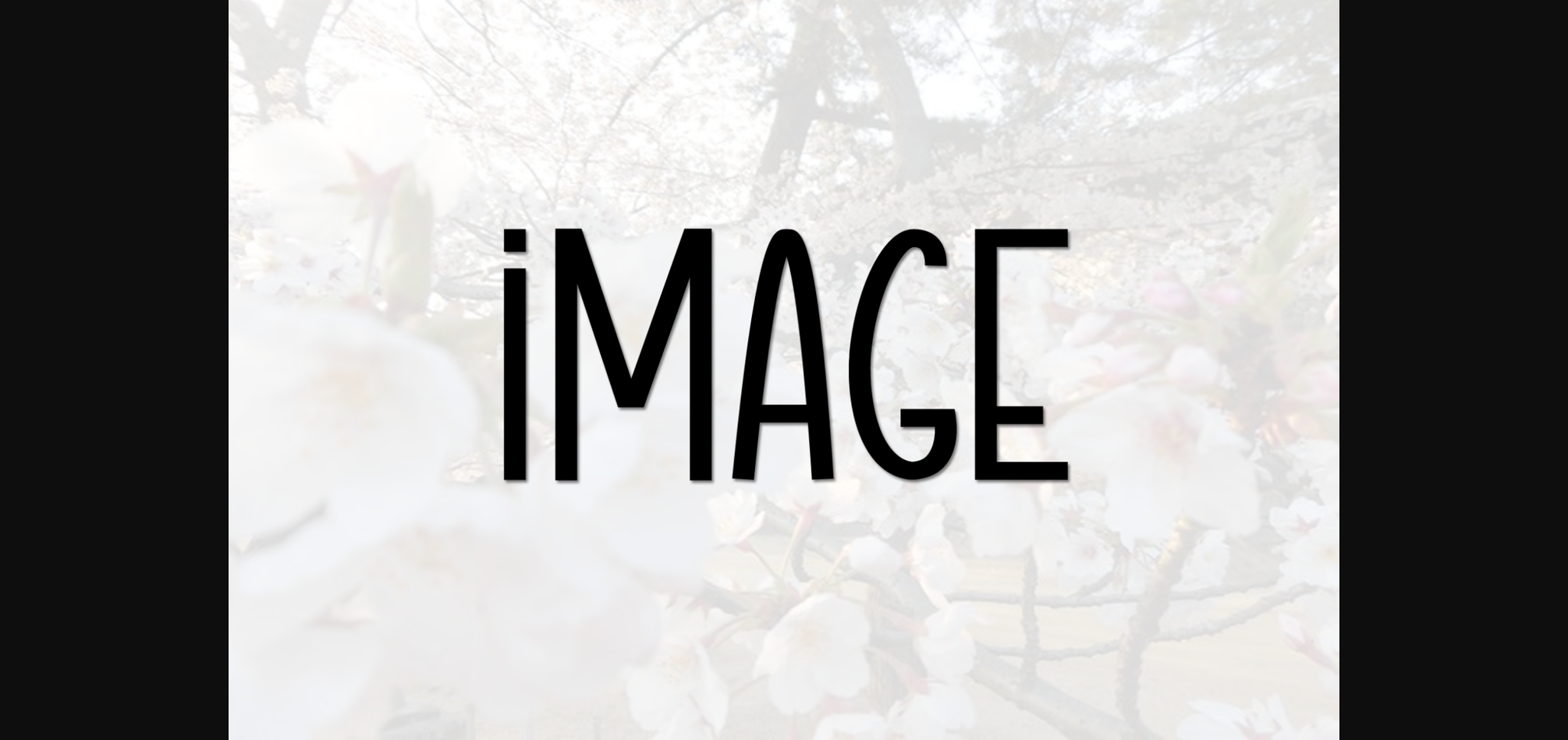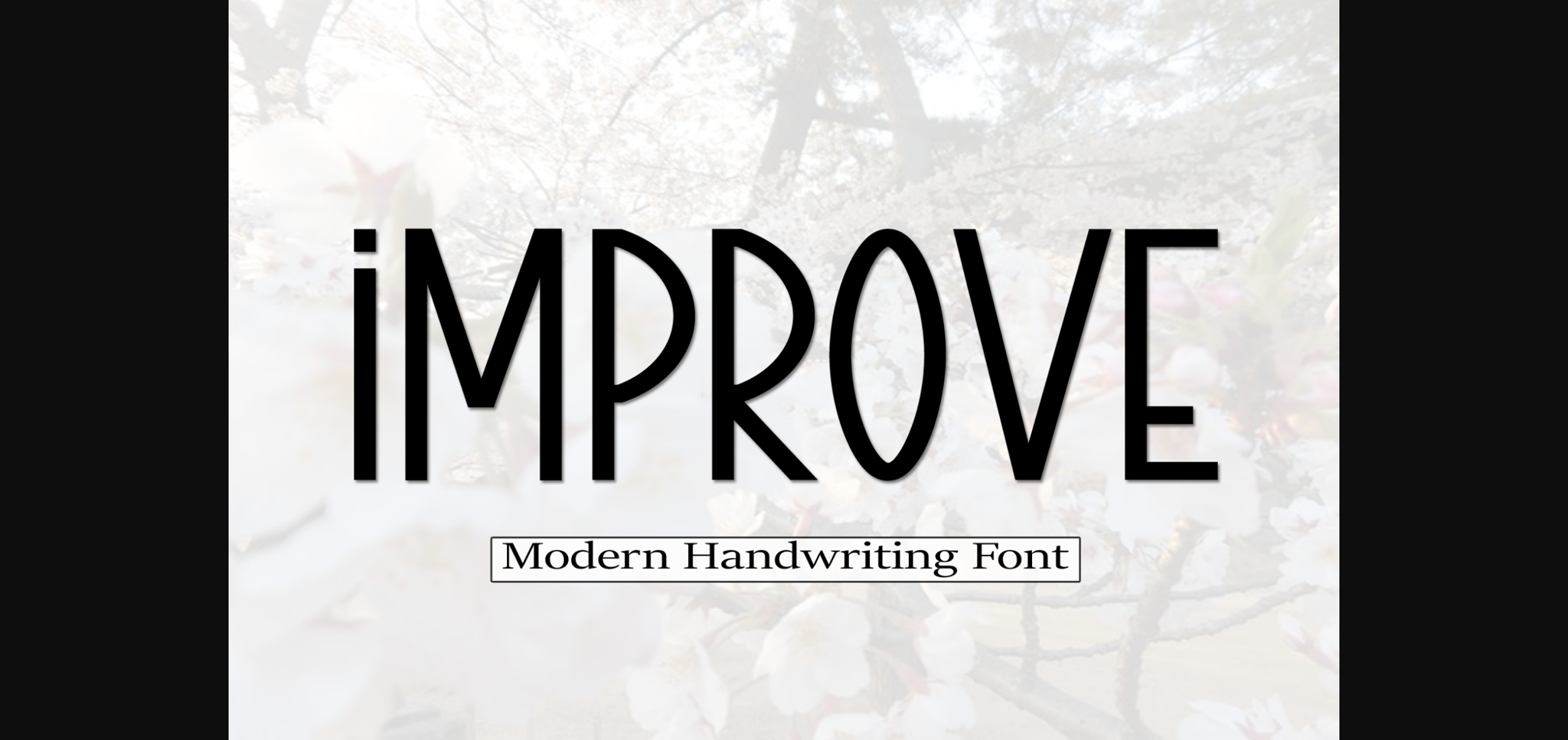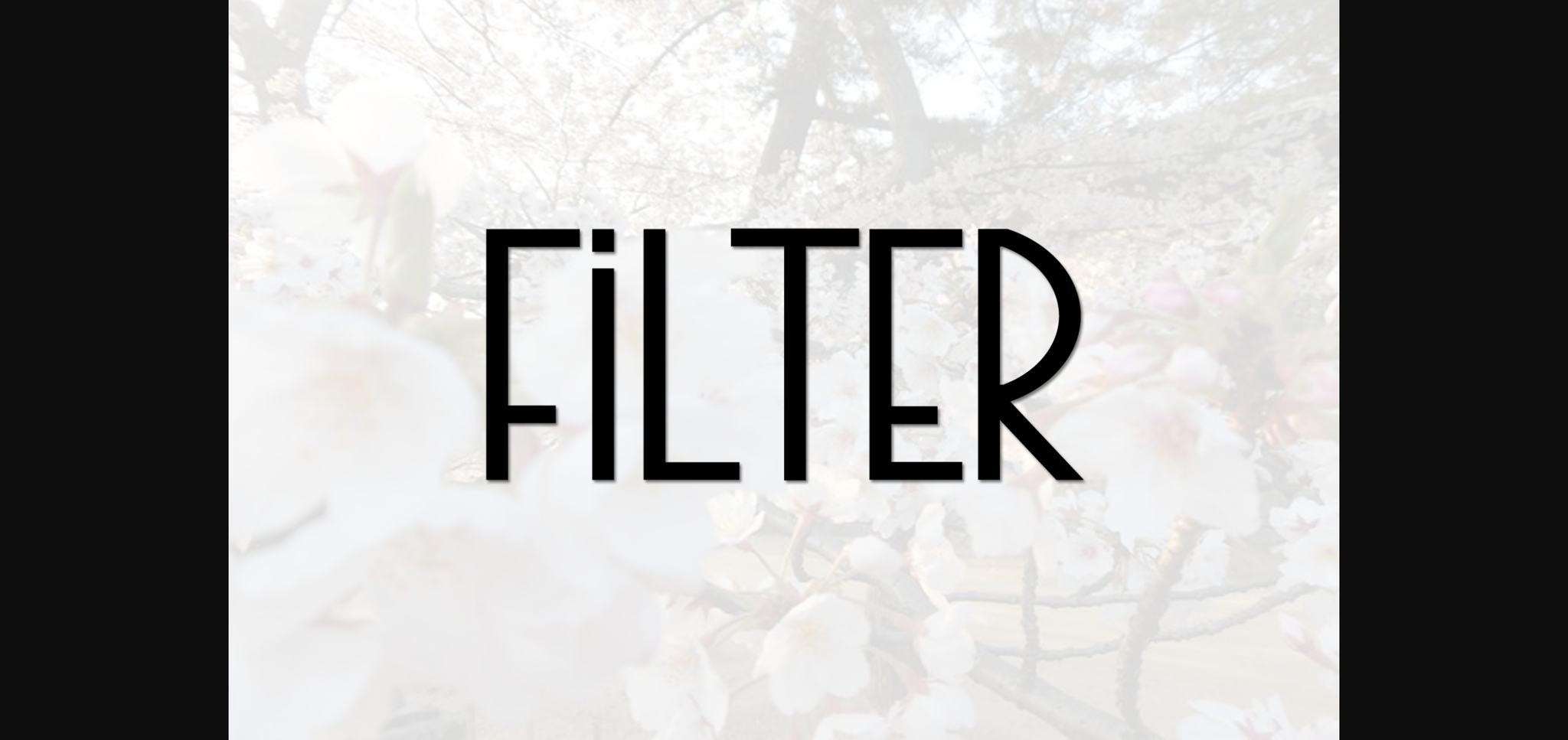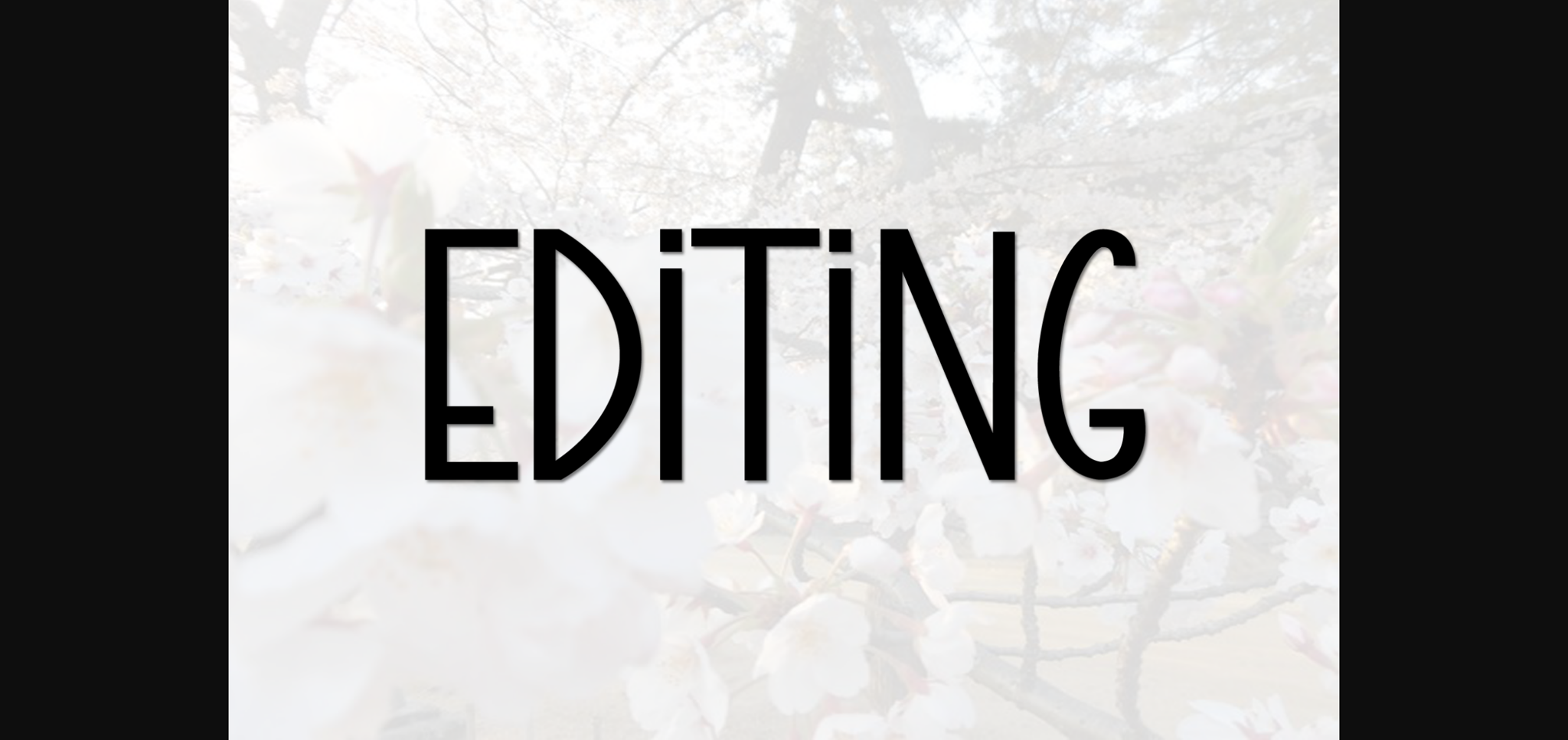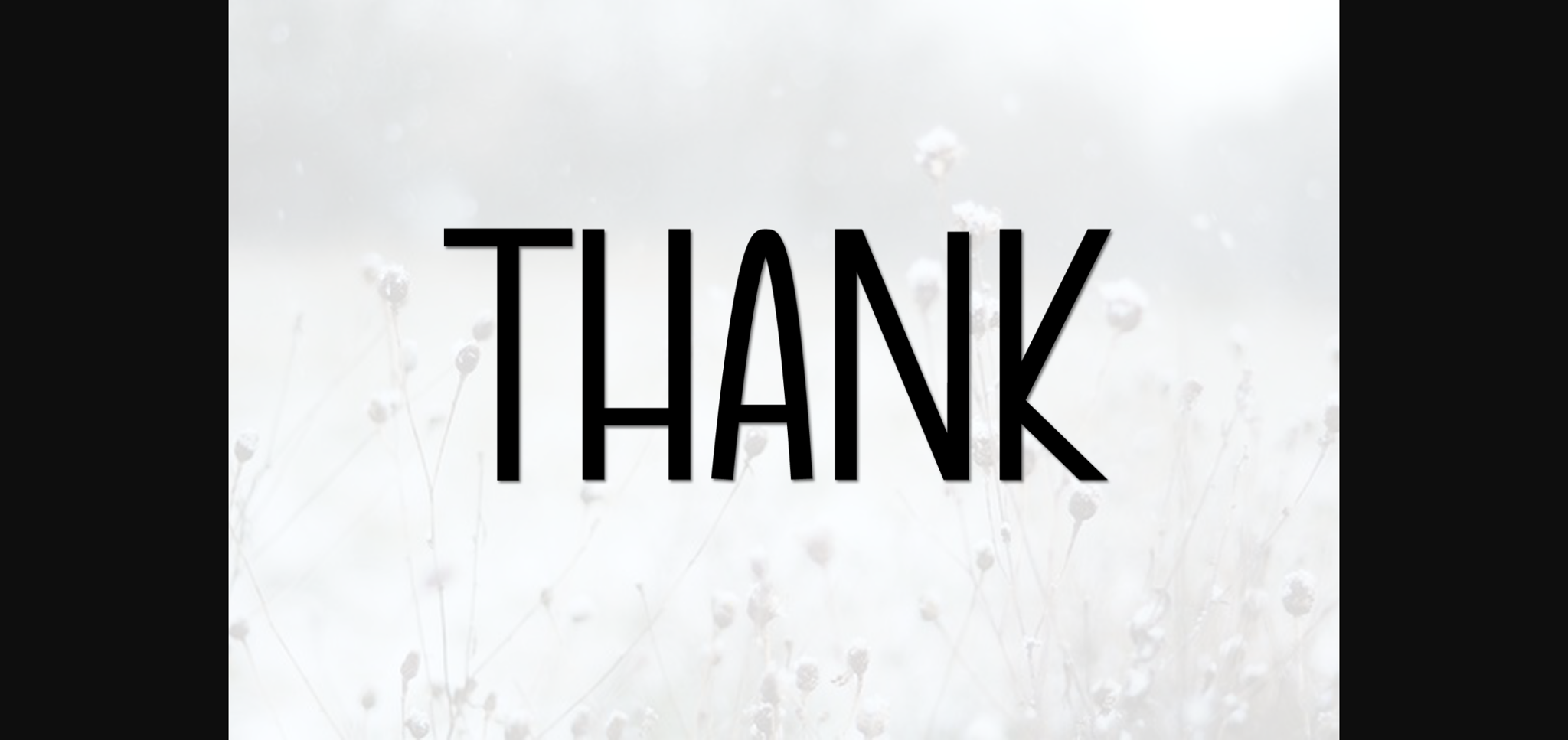
HomeSans Serif FontsImprove Font Sans Serif Fonts Improve Font FacebookXPinterestWhatsApp 1 of 7 ... Improve Font Poster 2... Improve Font Poster 3... Improve Font Poster 4... Improve Font Poster 5... Improve Font Poster 6... Improve Font Poster 7... About Improve Font Improve is a stylish and very elegant handwritten font. It looks amazing on wedding invitations, thank you cards, quotes, greeting cards, logos, business cards, and any other design that calls for a handwritten touch. DOWNLOAD NOW People also explored Tripcopus Font Galentine Font Meow Font Hanna Montana Font Vita Valentina Font Kopos Font Secret Holiday Font Buttermilk Achilleas Font 431 0 TagsImproveImprove Font Previous articleGilgan FontNext articleGarleik Font LEAVE A REPLY Cancel reply Comment: Please enter your comment! Name:* Please enter your name here Email:* You have entered an incorrect email address! Please enter your email address here Website: Save my name, email, and website in this browser for the next time I comment. Personal Use Free Jurnal Personal Use Free Read more about this font Fat Max Personal Use Free Read more about this font Adelia Font Personal Use Free Read more about this font Vuldo Personal Use Free Read more about this font BLOG Free vs Paid Fonts: Why Investing in Premium Fonts Is Worth It Free vs Paid Fonts: Why Premium Fonts Are Worth It in 2025 The debate of free vs paid fonts continues in the design world. While... Top 10 Handwritten Fonts That Elevate Your Designs Top 7 Google Fonts Alternatives for Faster and Privacy-Friendly Web Design (2025) Transform Your Website: Elevate Your Typography with 7 Best Web Font Generators